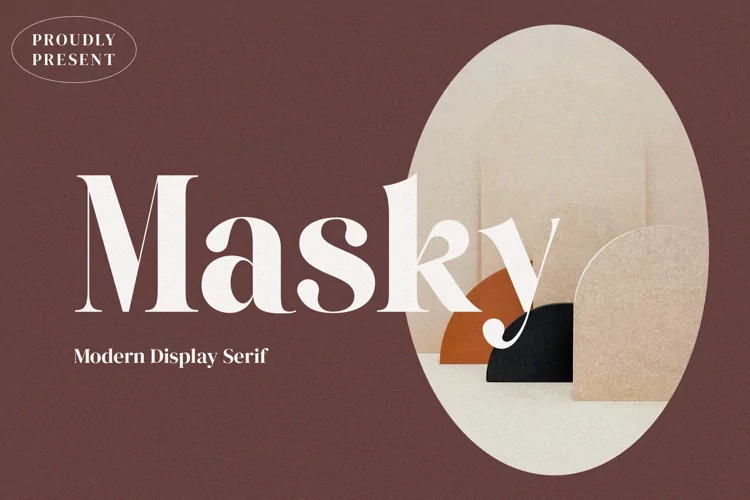
Masky Elegant Serif Font
Masky
Masky is a unique and very elegant font for branding and logo designs
Elegant serif typeface combined with a classy and modern style. This type of font is very suitable for your various needs such as branding projects, logos, wedding designs, social media posts, advertisements, product packaging, product designs, labels, photography, watermarks, invitations, stationery, and any project, created with high level of readability.